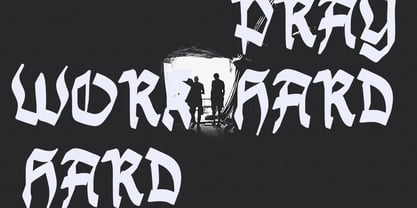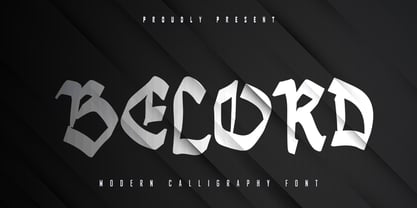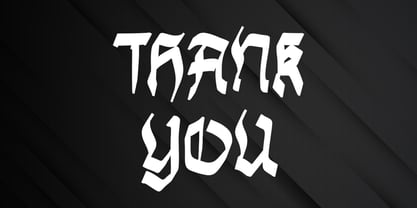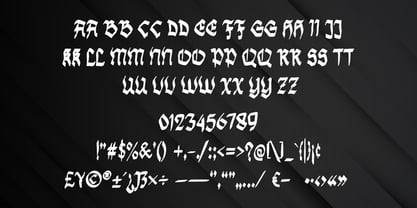
Belord
by Skiiller Studio
The Belord Font Family was designed by Irfan Mahmudin and published by Skiiller Studio. Belord contains 1 styles. More about this family
Belord is a modern calligraphy font featuring sharp angles, bold strokes, and a strong geometric character. Designed to deliver a powerful and futuristic impression, this font is perfect for logos, posters, headlines, branding, album covers, gaming visuals, and digital artwork. Its distinctive letterforms create high visual impact while maintaining readability, making Decord an excellent choice for creative projects that demand a modern, edgy, and professional typographic style.